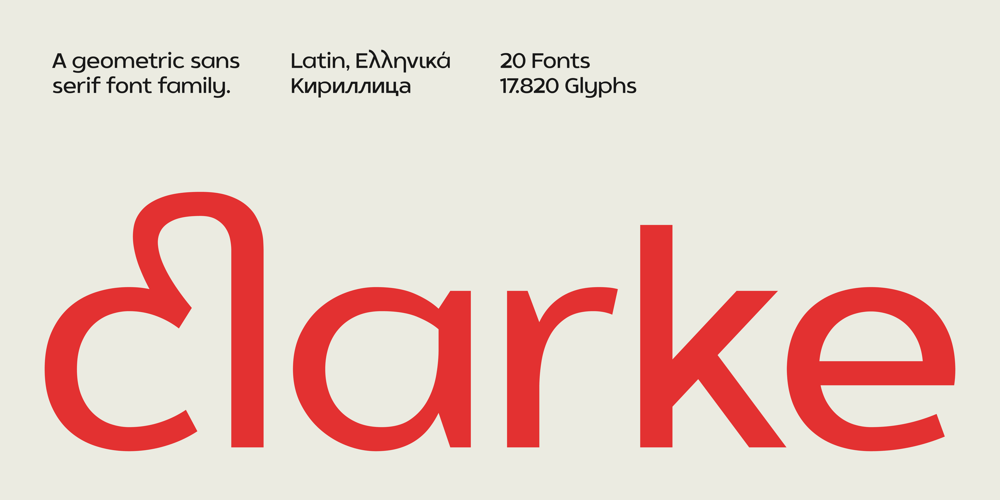
SK Clarke Font Family was designed by Salih Kizilkaya and published by Salih Kizilkaya. SK Clarke contains 20 styles and family package options. SK Clarke is a font designed in memory of the famous inventor and science fiction writer Arthur C. Clarke. Clarke is a geometric sans serif font family.It offers full support for the Latin, Greek and Cyrillic alphabets and supports many different languages. This font family includes a total of 20 fonts and 17,820 glyphs, so it contains all the typographic materials you will need in your designs.